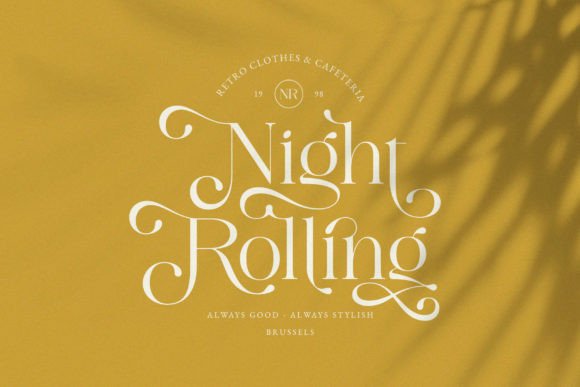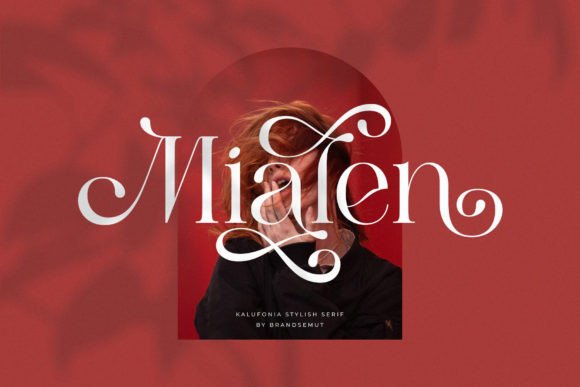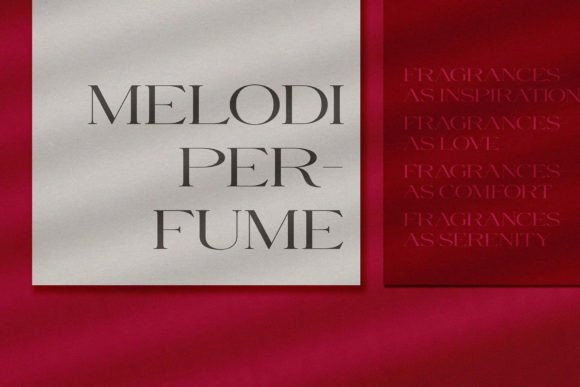
Introduction to Kalufonia Font
As a designer, there’s nothing quite like the thrill of bringing a creative project to life. You’ve spent hours pouring over design resources, perfecting every detail, and finally, it’s time to add the finishing touches. But what sets your project apart from the rest? For many designers, the answer lies in the font – specifically, the Kalufonia Font. This stylish and modern serif font is a game-changer for any project looking to add a touch of sophistication and elegance.
With its clean lines and smooth curves, Kalufonia Font is the perfect choice for headings, logos, branding, magazines, product packaging, and invitations. Whether you’re working on a high-end campaign or a simple greeting card, this font is sure to elevate your design to the next level. And the best part? It’s available for free download, making it an accessible design resource for designers of all levels.
- Unique, modern design aesthetic that can add a touch of sophistication to any creative project or design resource.
- Designed to be highly legible and readable, making it an excellent choice for body text, headings, and titles.
Honest Review: Kalufonia Font
I recently stumbled upon the Kalufonia Font, a high-quality design resource that caught my attention. As a designer, I’m always on the lookout for unique and creative elements to elevate my projects. The Kalufonia Font definitely delivers.
- Unique and quirky design style that adds a touch of personality to any creative project
- High-quality font with clear and crisp lines, perfect for printing or digital use
- May not be suitable for formal or professional projects due to its playful design style
Overall, I’m impressed with the Kalufonia Font’s creativity and versatility. While it may not be perfect for every project, it’s an excellent choice for designers looking to add a unique touch to their work. I’d definitely recommend it as a design resource, especially for free download.
Common Use Cases for Kalufonia Font
The Kalufonia Font is ideal for various creative projects, including logos, business cards, and brochures. Use it to add a touch of sophistication and elegance to your designs. With its high-quality features and free download option, the Kalufonia Font is a valuable design resource for any project.